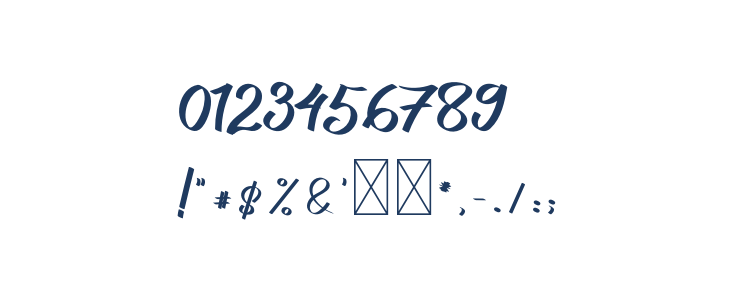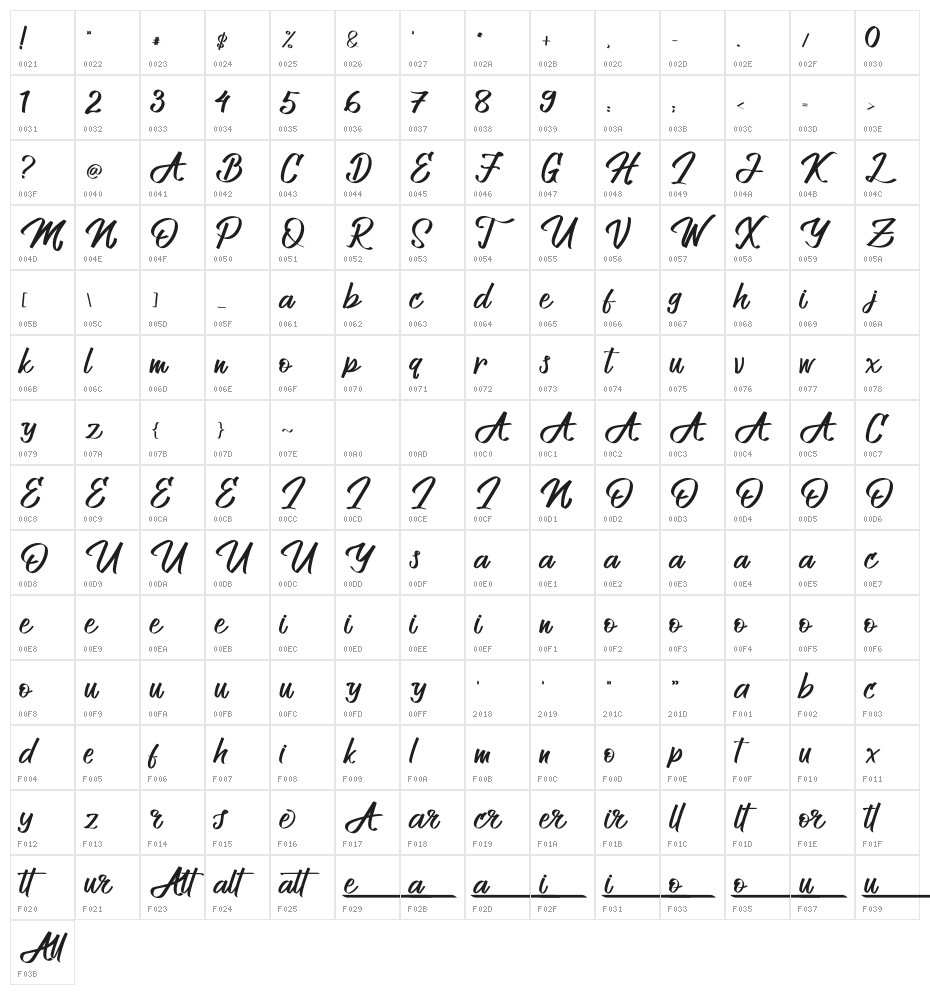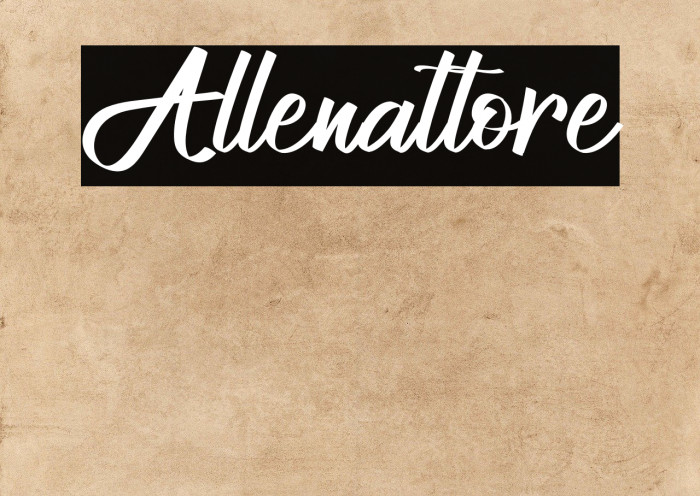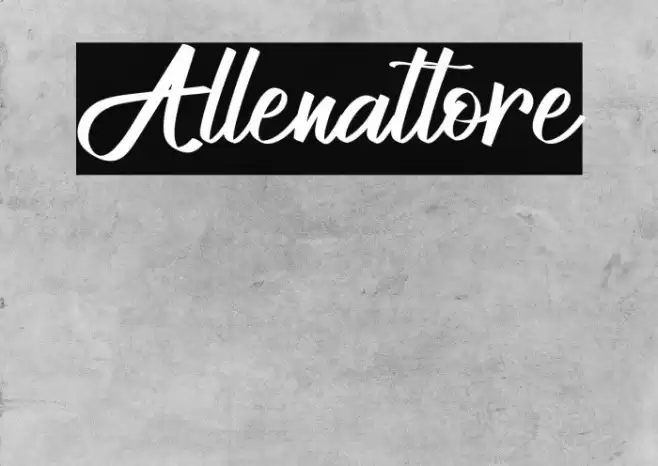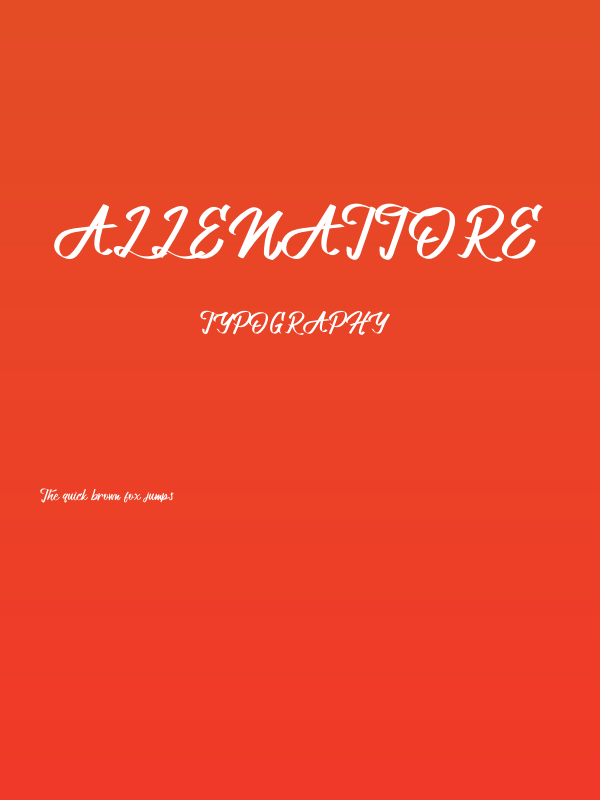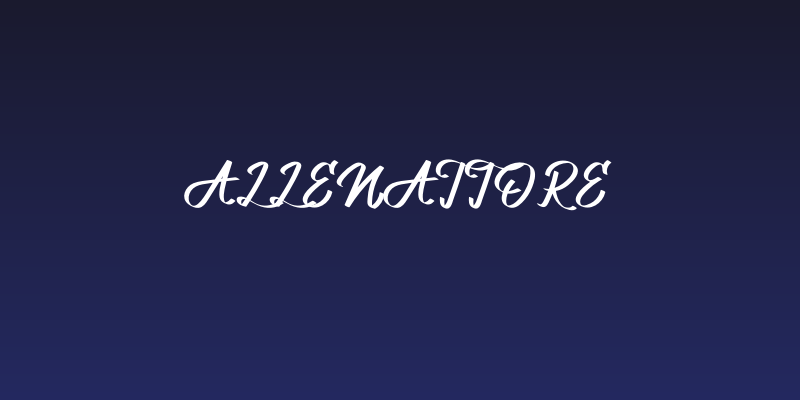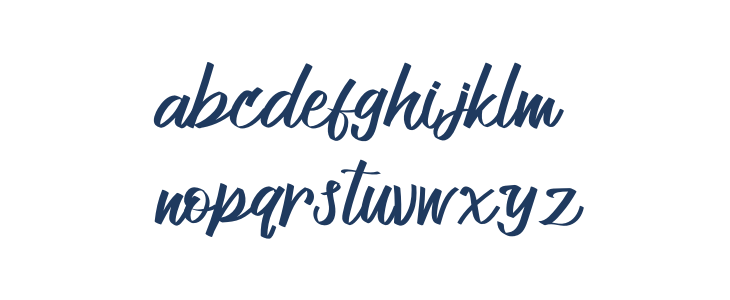
Allenattore Font
Allenattore Description
This font exudes a dynamic and expressive style, characterized by its cursive, flowing script that mimics the fluidity of handwriting. The uppercase letters are bold and slightly slanted, giving a sense of movement and elegance. The lowercase letters maintain a consistent style, with smooth curves and a slight slant, enhancing readability while retaining a personal touch. The numerals are distinct and clear, matching the overall aesthetic with their rounded forms and slight inclination. Special characters are well-integrated, maintaining the font's cohesive look. This font is ideal for projects that require a personal, yet professional touch, such as invitations, branding, and creative designs.